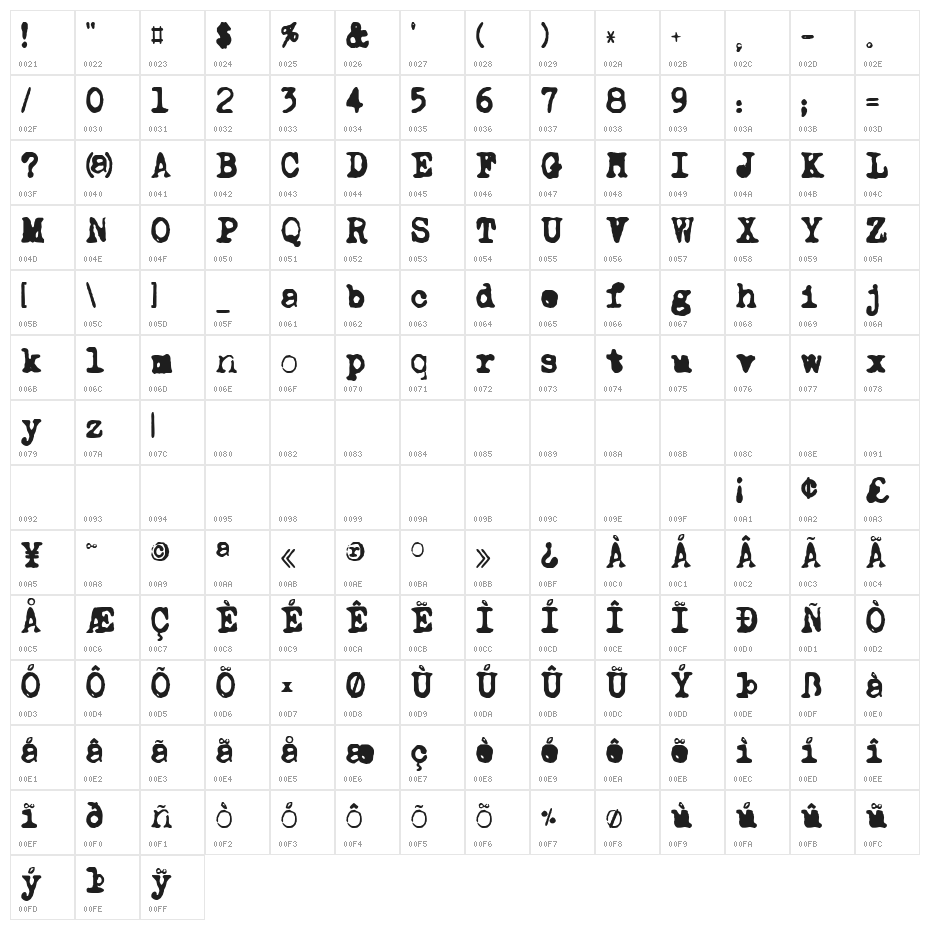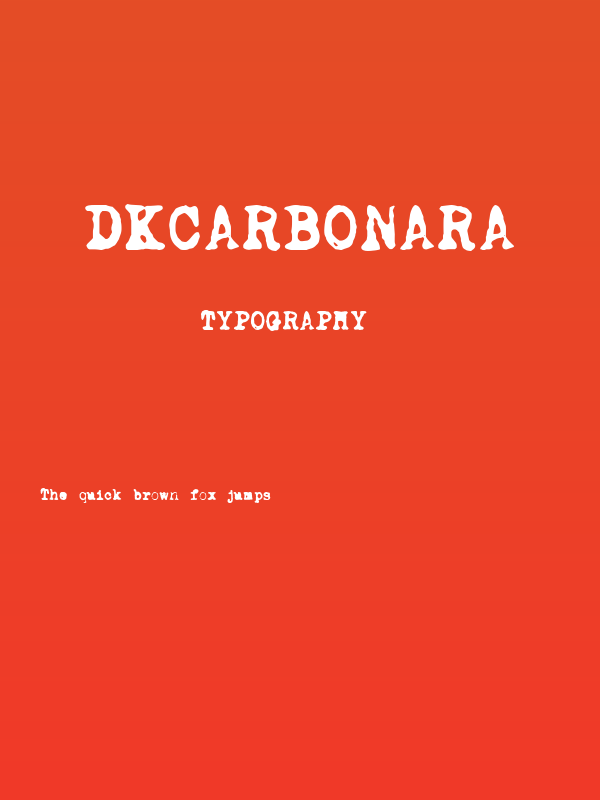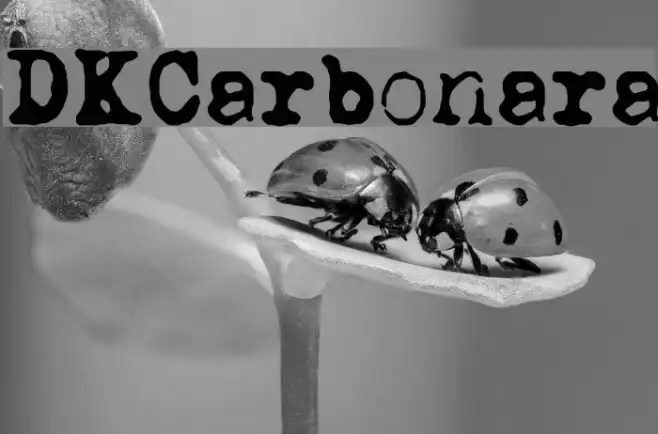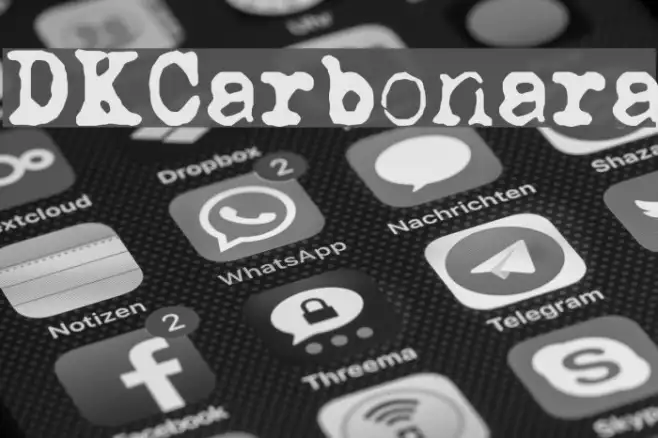
DKCarbonara Font
| Caso d'uso | Logos, Posters, Headlines |
| Progetti proposti | Ideal for posters, album covers, branding for creative industries, or any project needing a bold, artistic touch. |